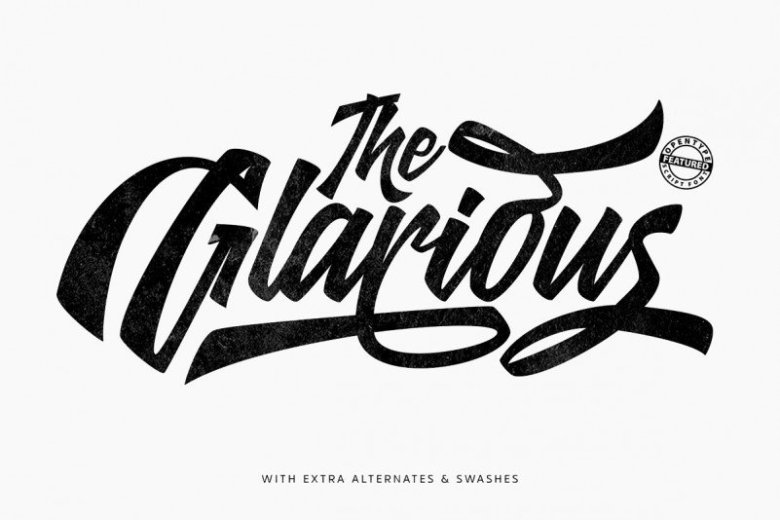
Glarious Calligraphy Font
This is a calligraphy script font that comes with beautiful alternative characters. Designed to bring style elegance. Proudly presents latest product Glarious Font! It is designed and shared by Motokiwo. Glarious Calligraphy Font is a calligraphy font that perfect for you who needs a typeface for especially logotype, apparel, invitation, branding, packaging, advertising etc. This typeface is comes in uppercase, lowercase, punctuations, symbols & numerals, stylistic alternates, swashes, also support multilingual and already PUA encoded.